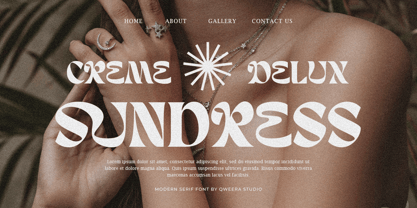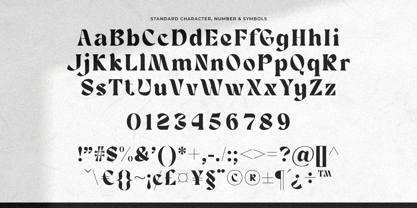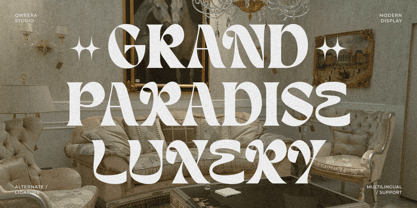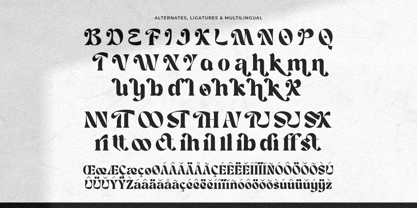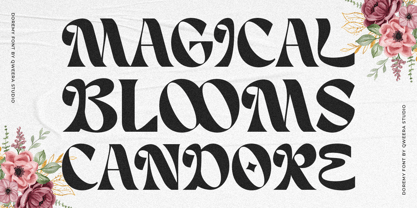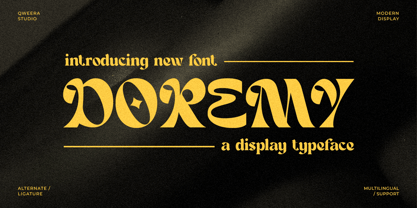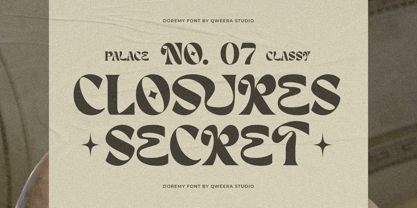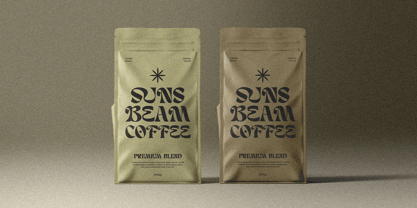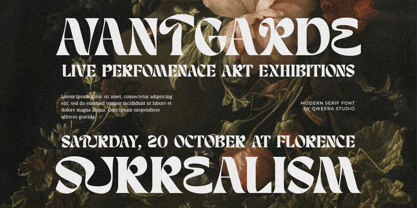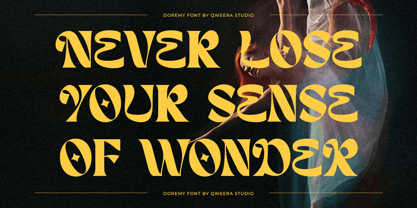
Doremy
by Qweera Studio
The Doremy Font Family was designed by Idhham Cholid Rikzano Yahya and published by Qweera Studio. Doremy contains 3 styles and family package options.
Doremy is a Display Serif font that exudes a modern and bold impression. Available in regular, italic, and outline versions, Doremy brings flexibility and uniqueness to every design. This font is equipped with a variety of distinctive alternates and ligatures, making it ideal for branding projects, editorial, and poster design. Combine the elegant and dynamic characteristics of Doremy to create unforgettable visuals.
• Regular, Italic & Outline
• All Multilingual symbol
• Opentype features ( ligature, alternate )
Multilingual character supports : (Afrikaans, Albanian, Catalan, Croatian, Czech, Danish, Dutch, English, Estonian, Finnish, French, German, Hungarian, Icelandic, Italian, Lithuanian, Maltese, Norwegian, Polish, Portuguese, Slovenian, Spanish, Swedish, Turkish, Zulu)